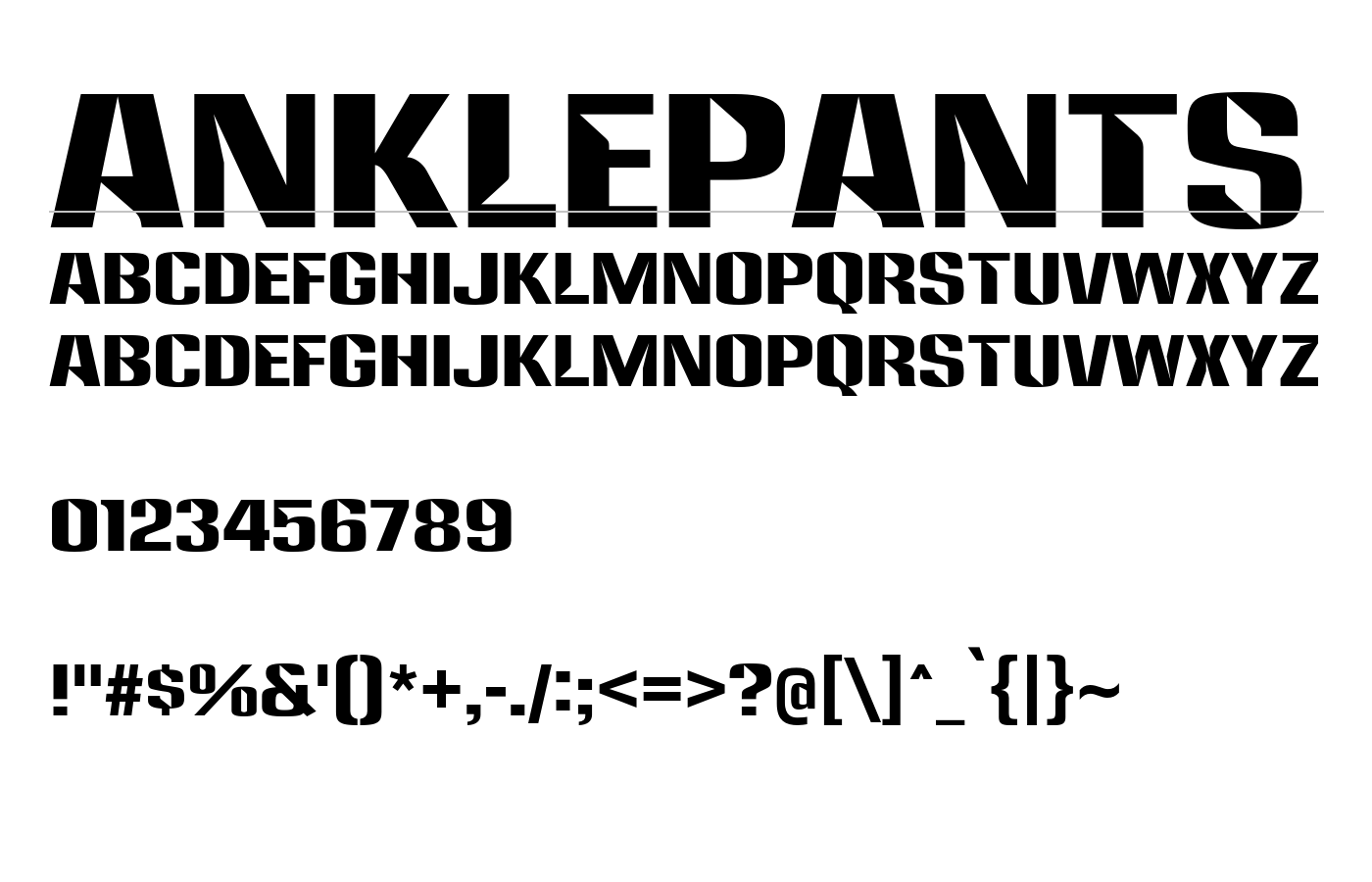
Anklepants is a bold, condensed sans serif font with a striking, industrial feel created by its sharp angled cuts and high contrast between thick and thin strokes. Its unique geometric shapes give it a strong, modern personality, making it ideal for impactful headlines, logo design, and branding that needs a confident, edgy look. This font works well in contexts where attention and a contemporary vibe are key, such as posters, fashion branding, and editorial headlines.
Anklepants Font
About Anklepants Font